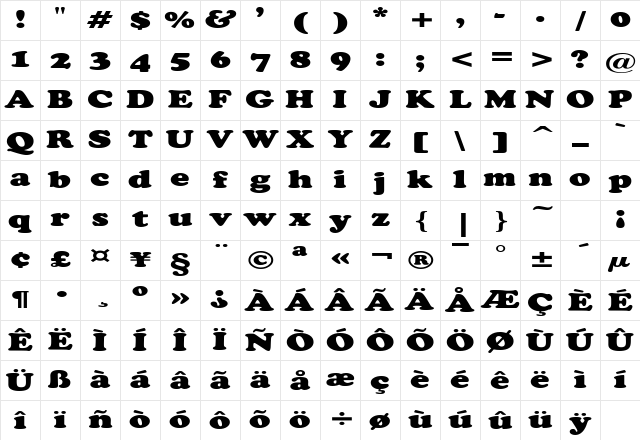
CopperfieldExtended Regular
Design Context for CopperfieldExtended
CopperfieldExtended is a composed and adaptable typeface that performs quietly and consistently across a wide range of design contexts.
Pro Tip: Use CopperfieldExtended in both headline and body roles to test its range before committing to a single application.